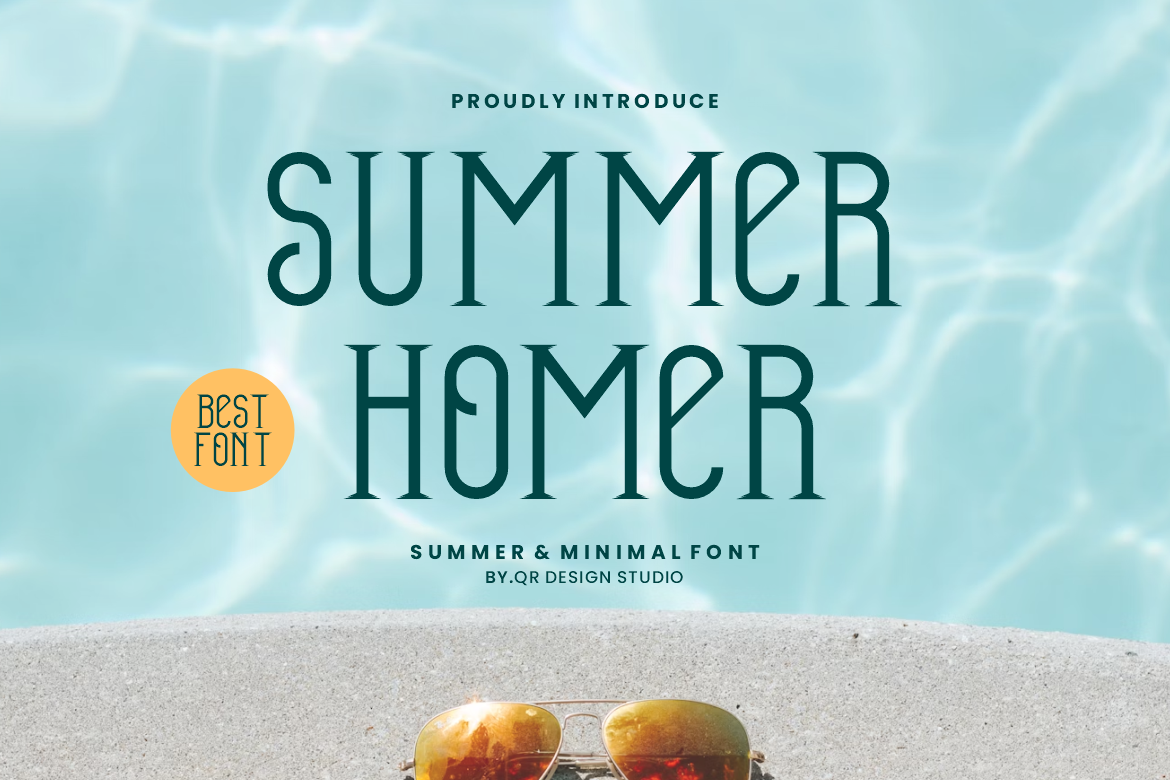
Summer Homer - Minimal Font
Summer Homer Font is a serif and authentic display font. The font is suitable for any branding project like poster, logo, travel, and many more. Outstanding in a wide range of contexts.